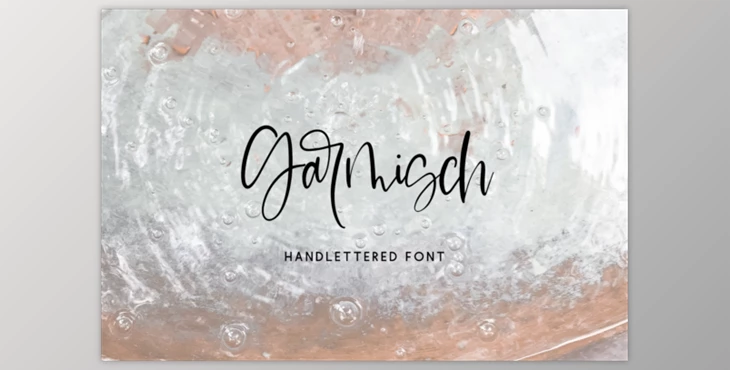
Garmisch Font: Garmisch Script is a stunning handwritten font developed to become a genuine beloved. It retains its classic calligraphic style while remaining contemporary and modern. Get it and take your work to the next level!